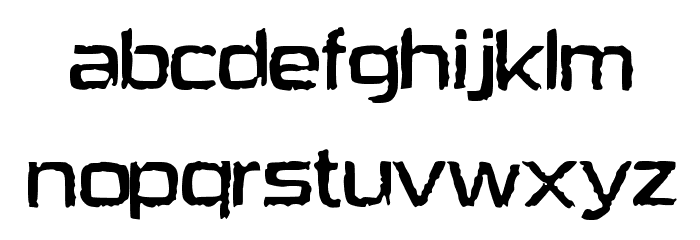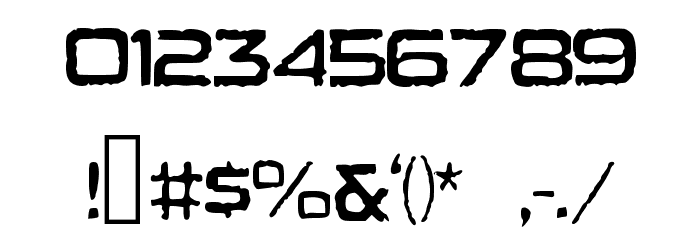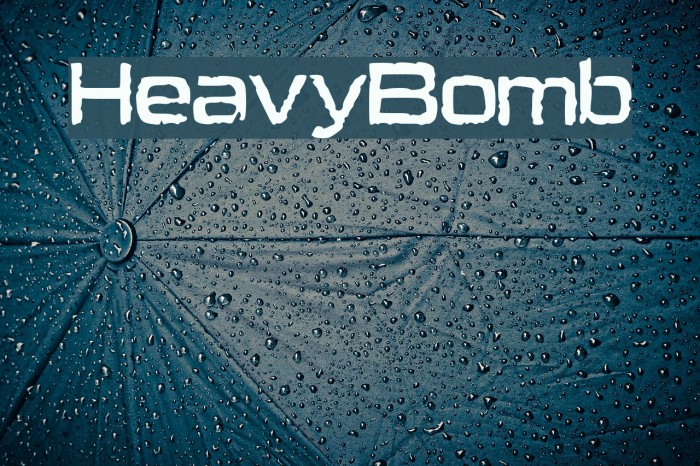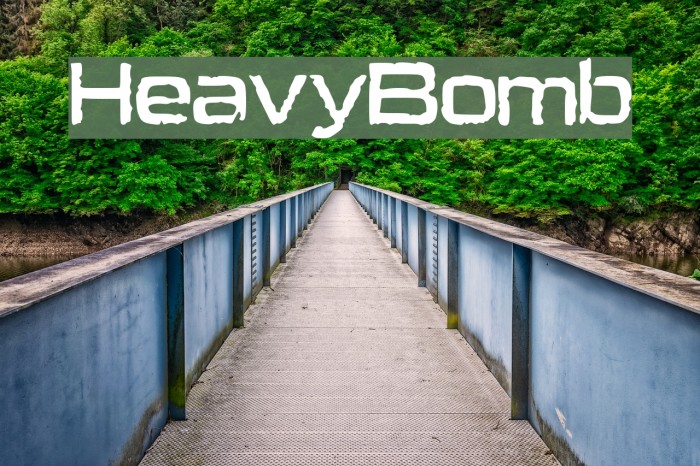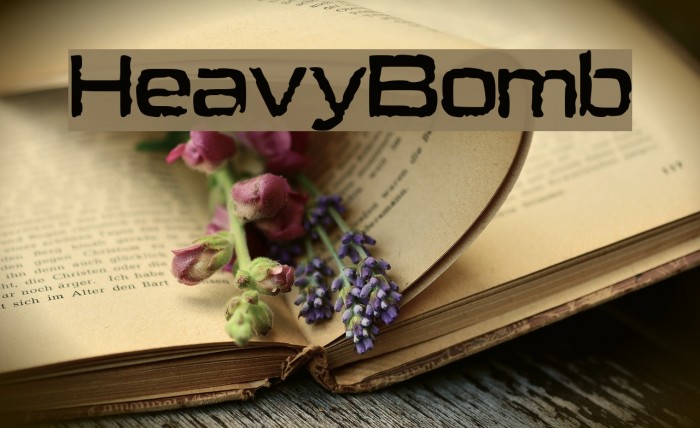
HeavyBomb Font
This font features a rugged and distressed aesthetic, characterized by its bold and impactful letterforms. The edges of each character are uneven and rough, giving it a hand-crafted, grunge appearance. The uppercase and lowercase letters maintain a consistent style, with a slightly condensed form that enhances its boldness. Numbers and special characters follow the same distressed theme, ensuring uniformity across all glyphs. The font's unique style makes it stand out, perfect for projects that require a strong visual impact.
A bold, distressed font with rugged, uneven edges for a grunge look.
- Proposed Projects: Ideal for posters, album covers, branding for edgy products, or any design needing a bold, gritty aesthetic.
- Overall Style: Grunge, Distressed